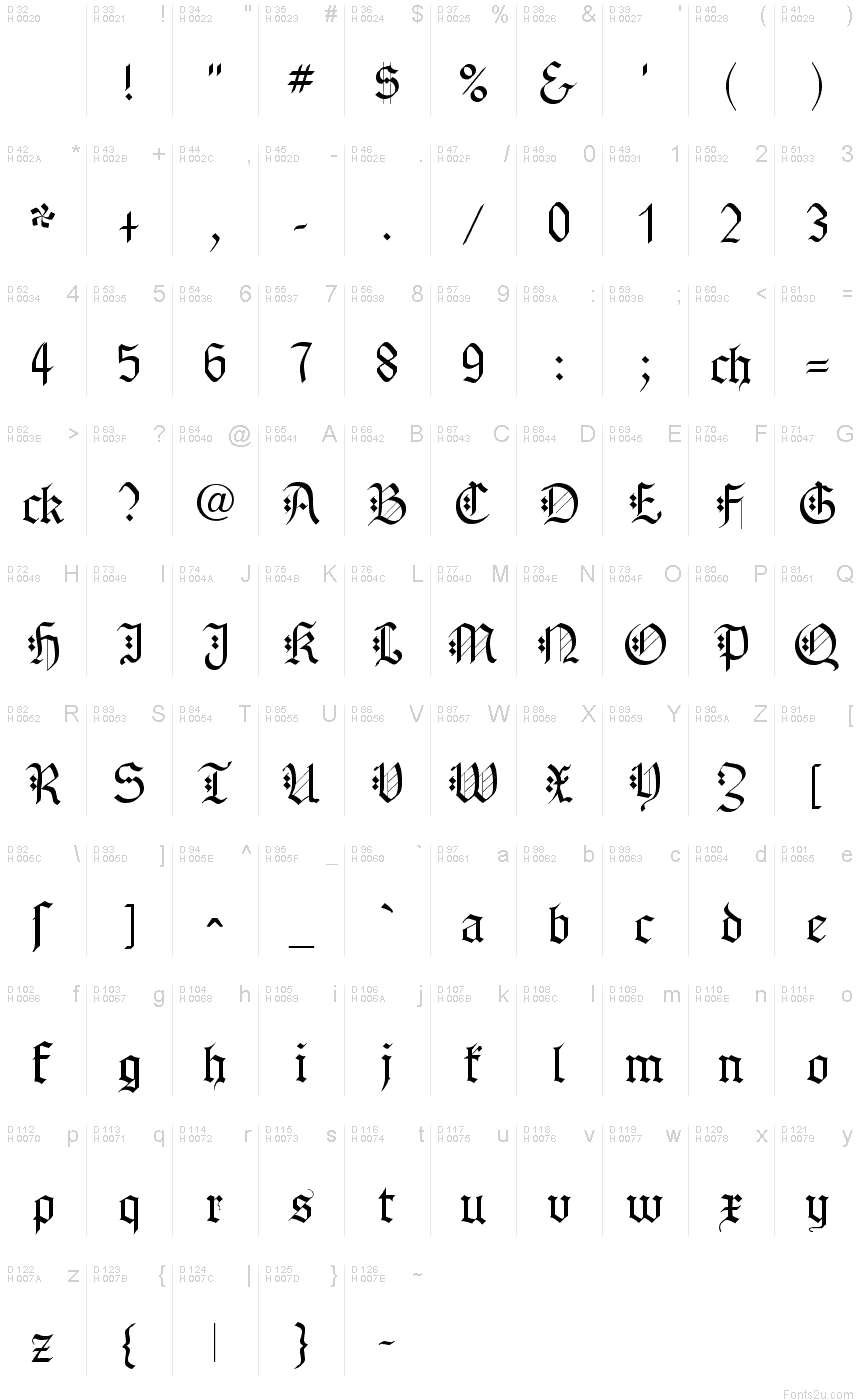
Gothenburg Fraktur from Typographer Mediengestaltung is a free blackletter font with a severe, hand-cut silhouette. Its broad vertical strokes break into sharp feet, diamond details, and abrupt hooked tips. The curves stay taut and angular.
For metal album covers, the jagged forms turn lettering into an aggressive emblem. Historical event posters and fantasy game graphics draw instead on its old-world construction and ceremonial weight. Those same blade-like edges link dark fashion branding with theatrical merchandise, where the type can become part of the ornament.